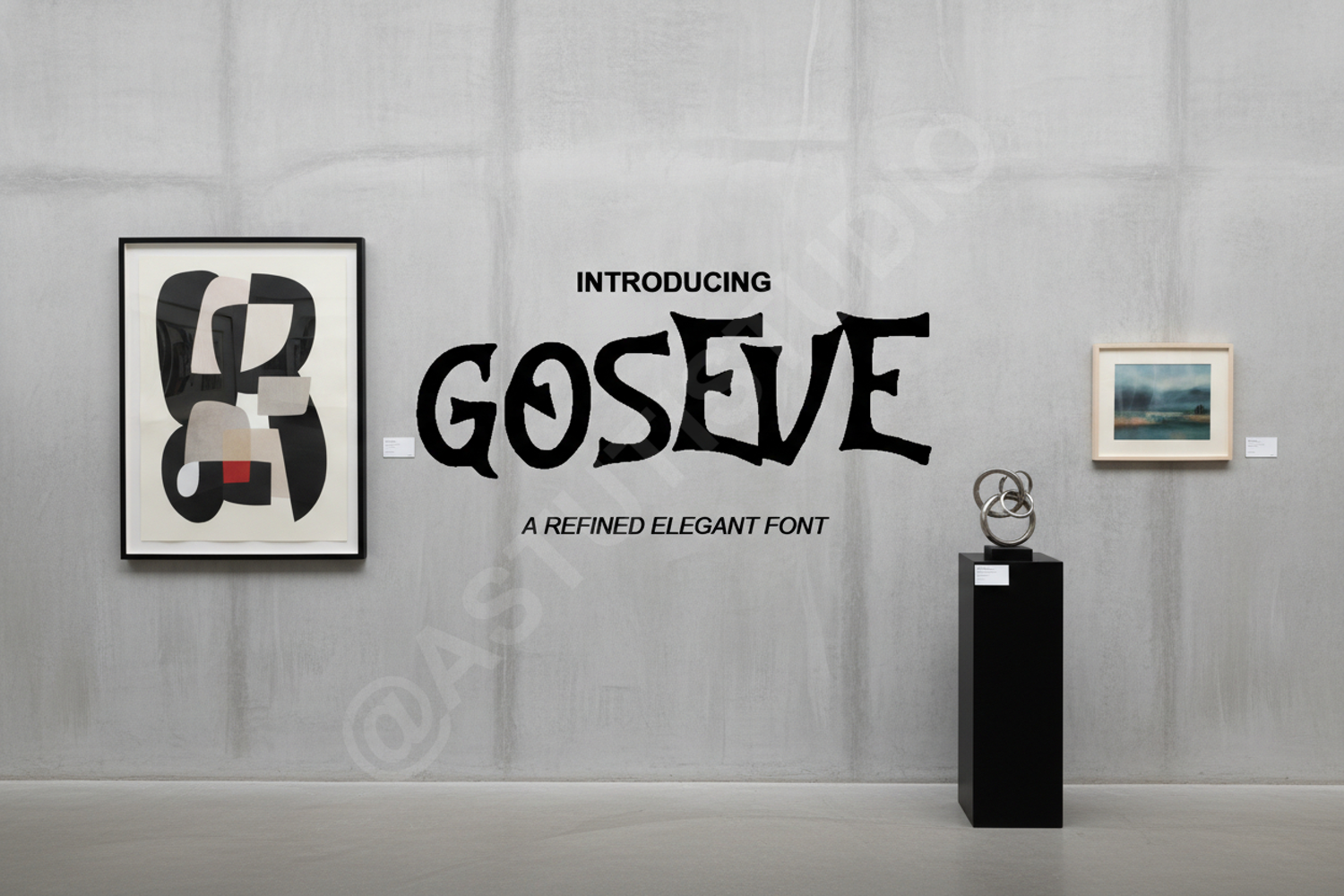
Goseve - Elegant Modern Serif Typeface
Goseve
Goseve is a premium modern serif font that seamlessly blends timeless elegance with contemporary flair. Designed for creators who demand sophistication, this typeface features clean lines, balanced proportions, and a high-contrast aesthetic that commands attention. Whether you are crafting a luxury brand identity or a minimalist layout, Goseve provides the professional polish and versatility your projects deserve.
- Standard Ligatures and Stylish Alternates
- Branding and Logo Design: Create memorable and upscale visual identities for premium businesses.
- Wedding Stationery: Add a touch of class to invitations, save-the-dates, and event menus.
- Editorial Layouts: Perfect for high-fashion magazine headers, book covers, and sophisticated digital spreads.
- Social Media: Elevate your digital presence with sleek, readable, and aesthetic typography.
- Product Packaging: Ideal for cosmetics, jewelry, and luxury goods packaging designs.